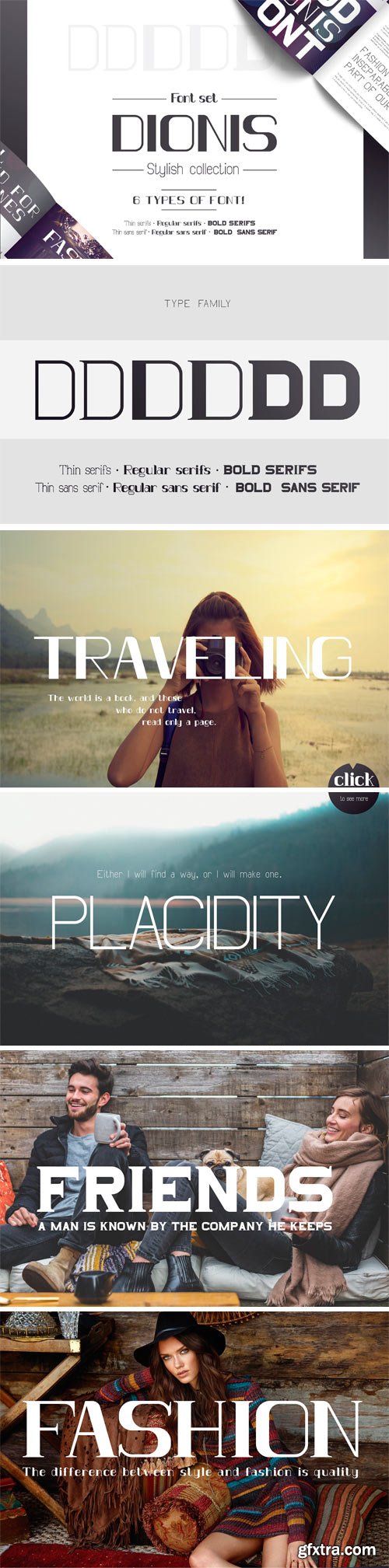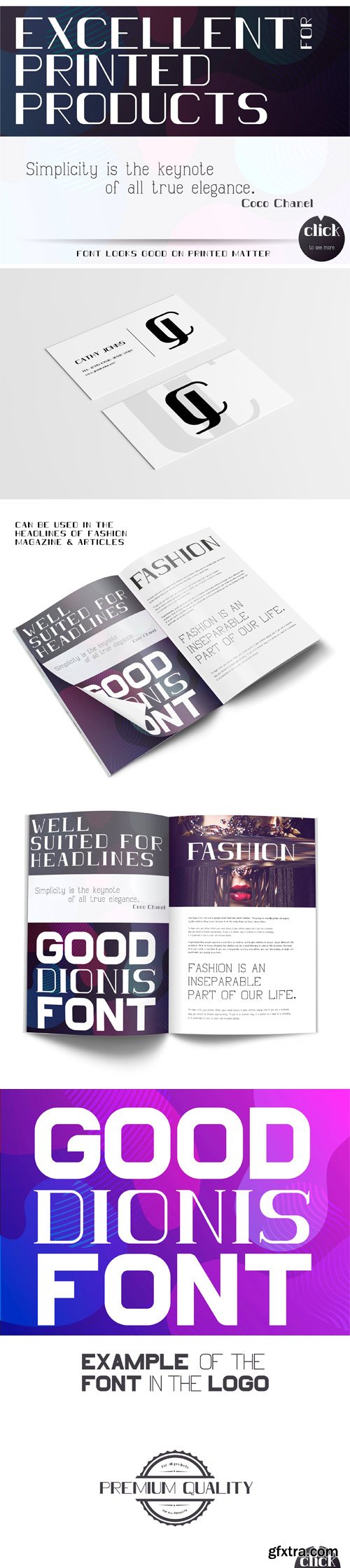
CM - DIONIS Set (Serif & Sans Serif) 1939388
Create great products using this font set. font DIONIS contains 6 types of font: serif and sans serif with different thick strokes. This font set can be used in the design of typography: flyers, booklets, catalogs, magazines, logos, and any design of products. This font will add uniqueness to your work.